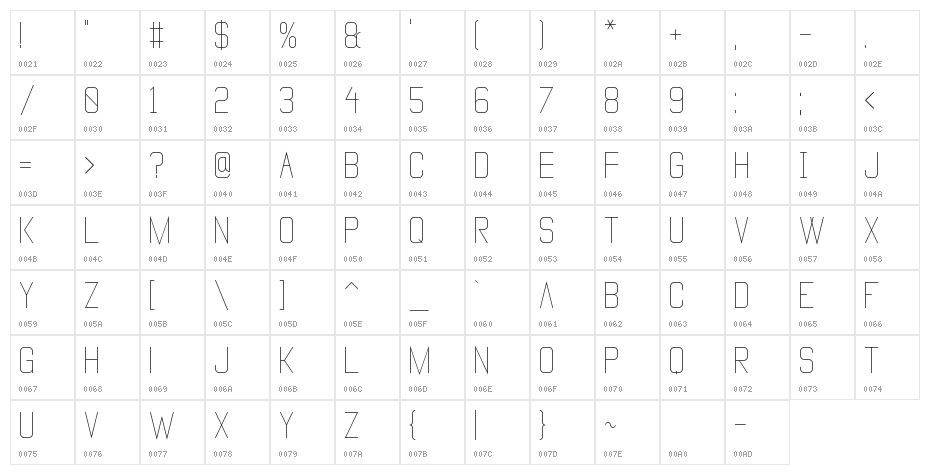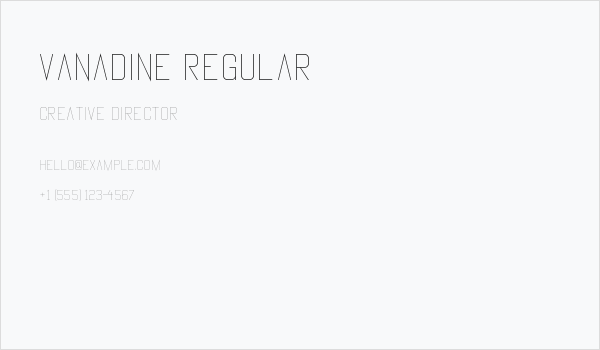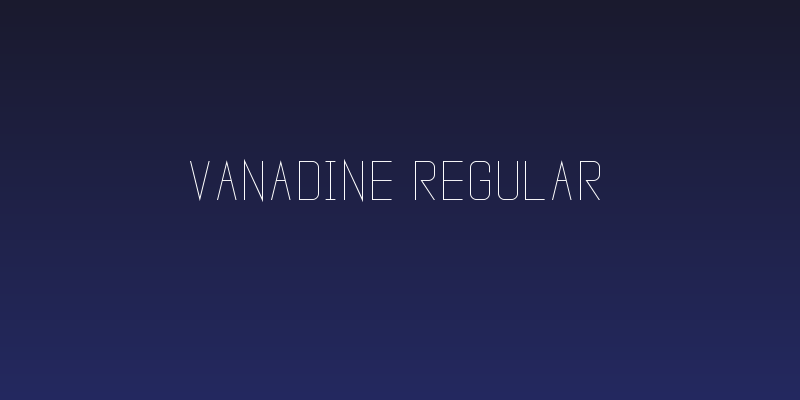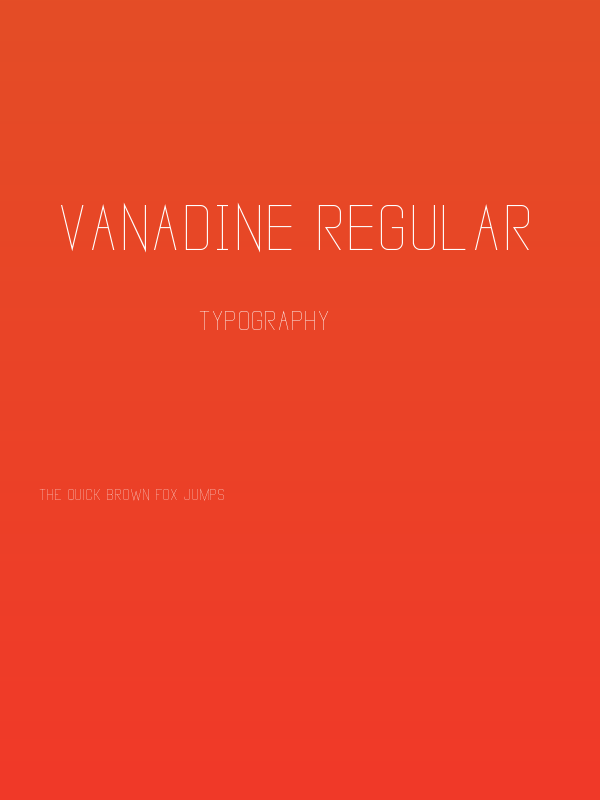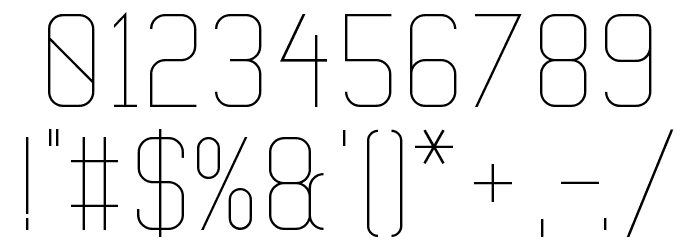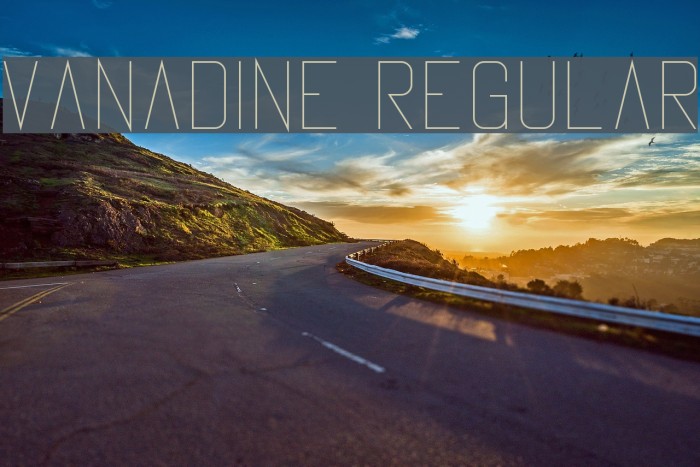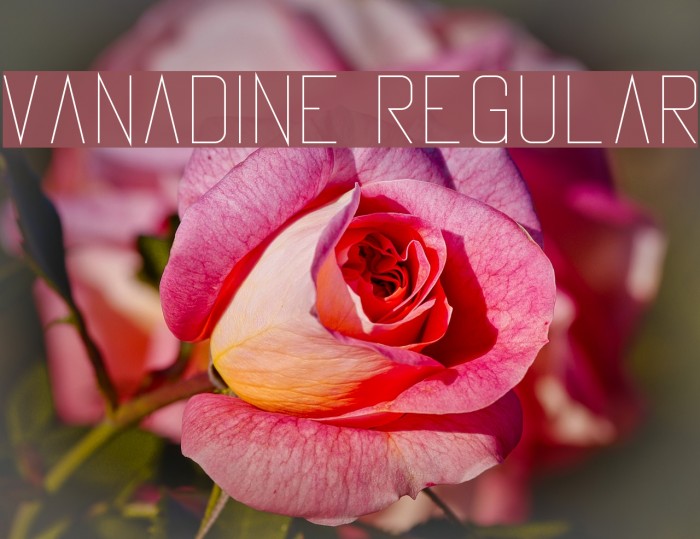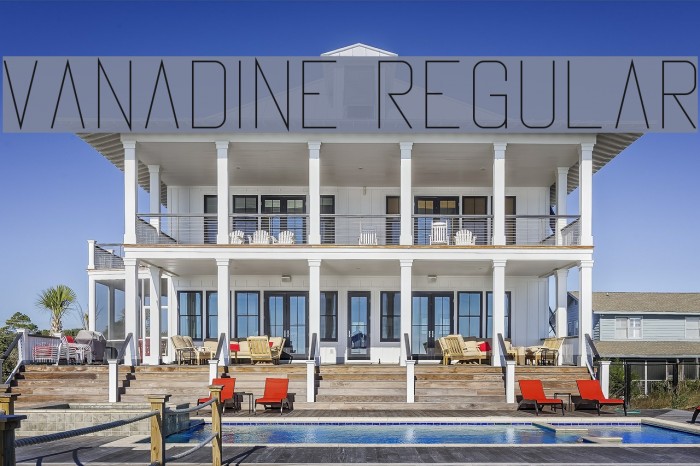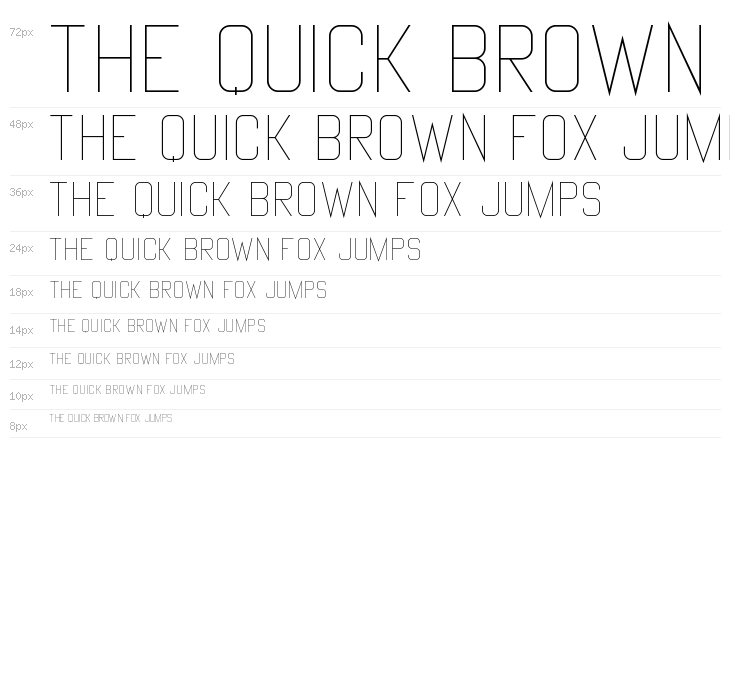
Vanadine Regular Font
Vanadine Regular Description
This font features a modern, geometric design with clean, straight lines and a minimalist aesthetic. The characters are constructed with uniform stroke widths, giving it a sleek and contemporary look. The uppercase and lowercase letters maintain a consistent height, contributing to a harmonious appearance. The numerals and special characters are designed to complement the alphabet, ensuring a cohesive visual style. Its simplicity and clarity make it suitable for a variety of design applications, from digital interfaces to print media.
Axel Lymphos
| Use Case | Headlines, Logos, Digital Interfaces |
| Proposed Projects | Ideal for tech branding, digital interfaces, modern posters, and minimalist design projects. |